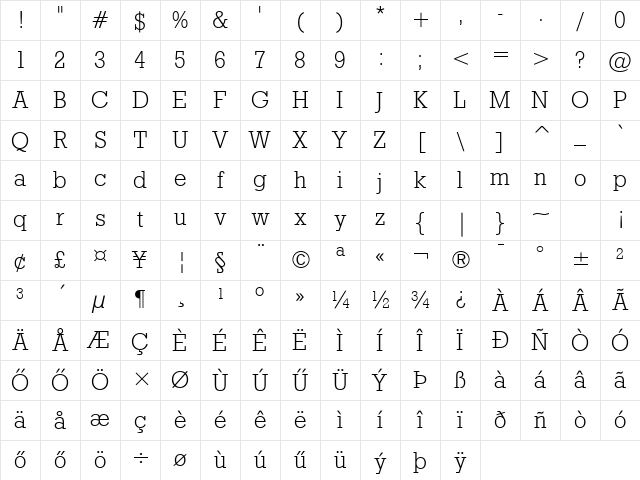
Geometric-Slabserif712 LtHU Light
Design Context for Geometric-Slabserif712 LtHU
Geometric-Slabserif712 LtHU features prominent, blocky serifs that give it a confident, grounded presence - equally at home in editorial settings and bold branding work. Its slender proportions lend an understated elegance to any composition.
Pro Tip: Use Geometric-Slabserif712 LtHU for headlines and subheadings where its slab serifs can make an impression. It also holds up well in mid-size body copy thanks to its sturdy construction.